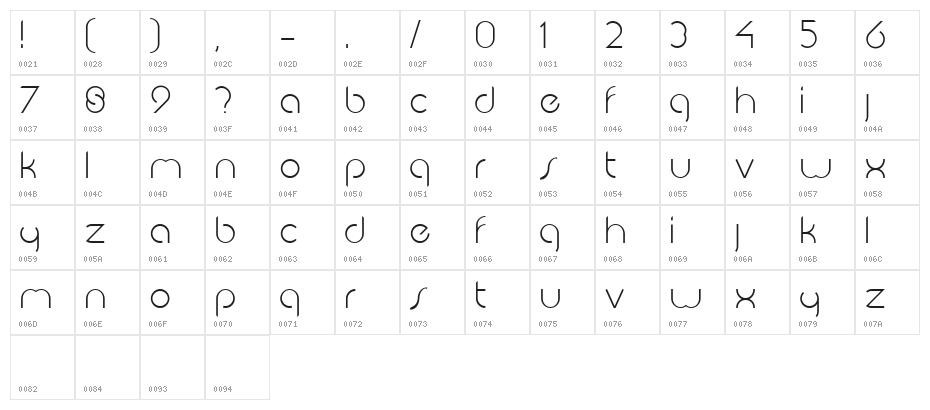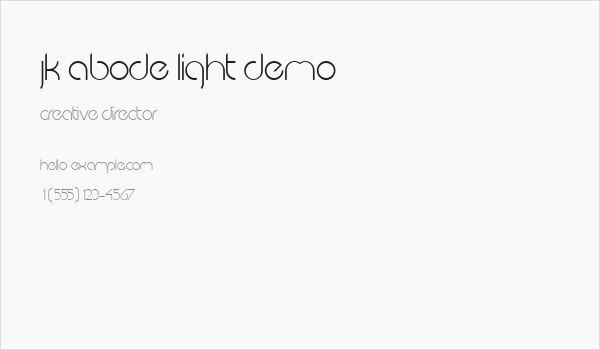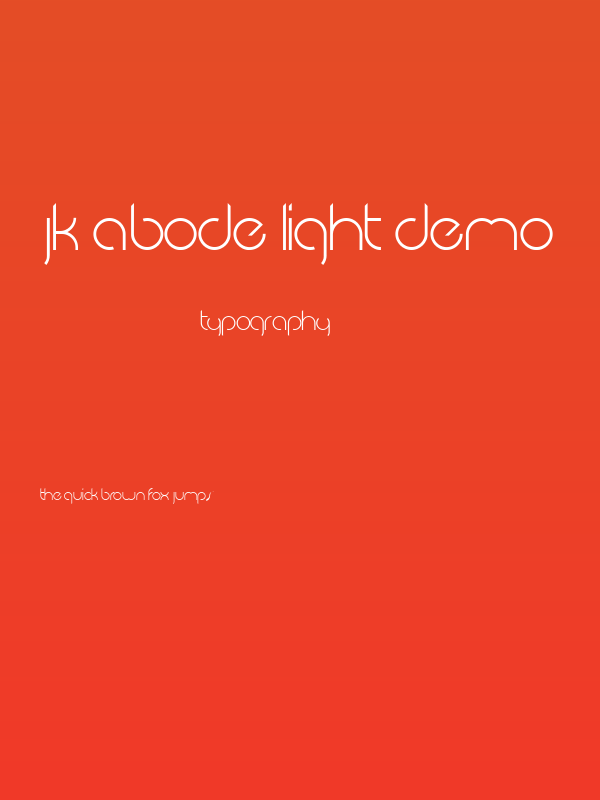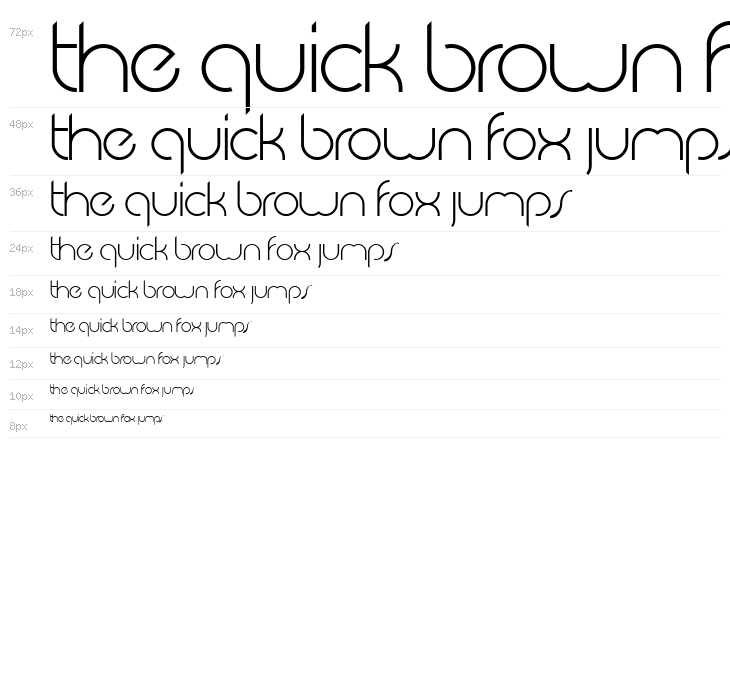
JK Abode Light Demo Font
JK Abode Light Demo Description
This font features a sleek and modern design with a geometric structure. The characters are composed of clean, continuous lines that form a minimalist aesthetic. The lowercase letters have a uniform height, contributing to a harmonious appearance. The uppercase letters maintain the same geometric style, offering a cohesive look across the typeface. The numerals are distinct and align well with the overall design, ensuring readability. Special characters are crafted with the same attention to detail, making them blend seamlessly with the rest of the font. This typeface is ideal for projects that require a contemporary and stylish touch.
| Use Case | Headlines, Logos, Digital interfaces |
| Proposed Projects | Ideal for branding, digital interfaces, modern posters, and minimalist design projects. |